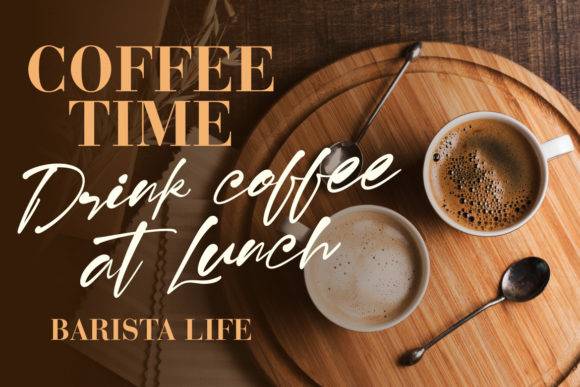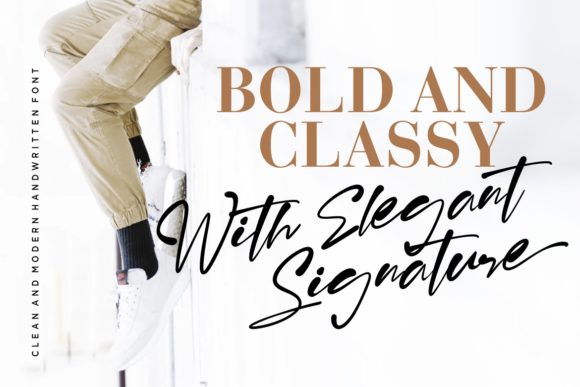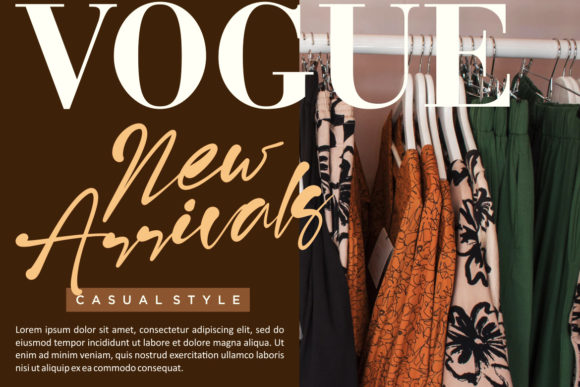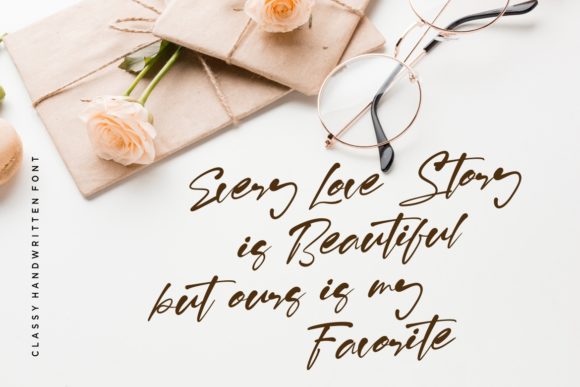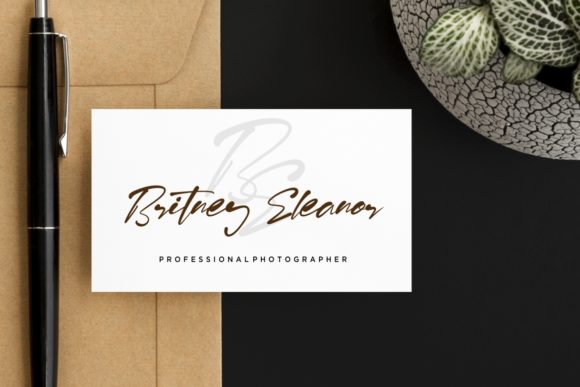
About Risolla Calisto Font
Risolla Calisto is charming and dynamic, but also elegant. This versatile script font has a wide range of applications ranging from headlines to branding and is guaranteed to add a magical touch to your next design.
This font is PUA encoded which means you can access all of the gorgeous glyphs and swashes with ease! It also features a wealth of special features including alternate glyphs and ligatures.